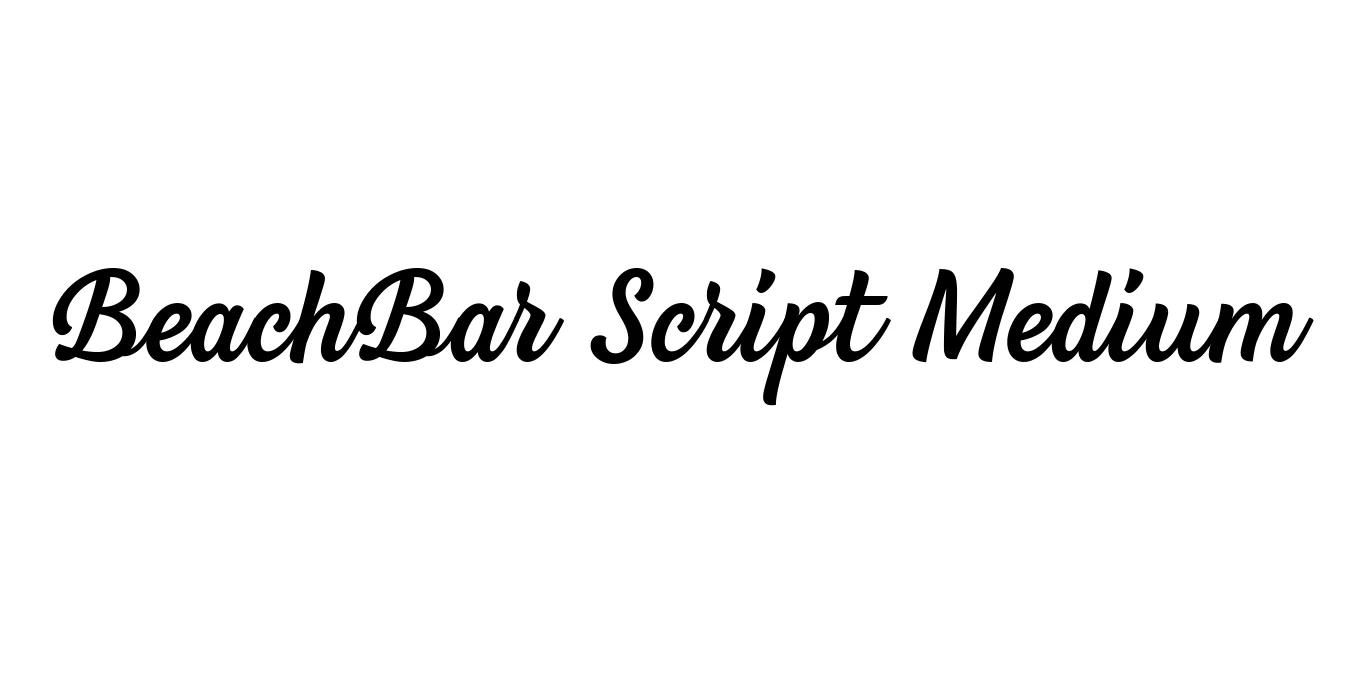
BeachBar Script Medium
Designed by Artur Schwind
BeachBar Script Medium is a vibrant and energetic brush script font designed by Artur Schwind. It was crafted to evoke the feeling of warm summer evenings, tropical getaways, and casual seaside dining. The medium weight offers a sturdy yet fluid appearance, featuring natural-looking connections and authentic hand-drawn strokes that give any project a personalized, artisanal touch.
This font is particularly effective for branding and identity projects that require a relaxed, friendly, and approachable vibe. Whether it is used for a beach club logo, a cocktail menu, or promotional materials for a travel agency, BeachBar Script Medium stands out for its high legibility and distinct personality, making it a versatile choice for modern designers who need a handmade aesthetic.
BeachBar Script Medium Best Uses
Creating laid-back and friendly identities for bars, cafes, and coastal lifestyle brands.
Designing high-energy and summery graphics for Instagram stories or travel blog headers.
Perfect for artisanal food products, tropical juice labels, and vacation-themed merchandise.
Eye-catching headlines for summer sales and seasonal promotional events.